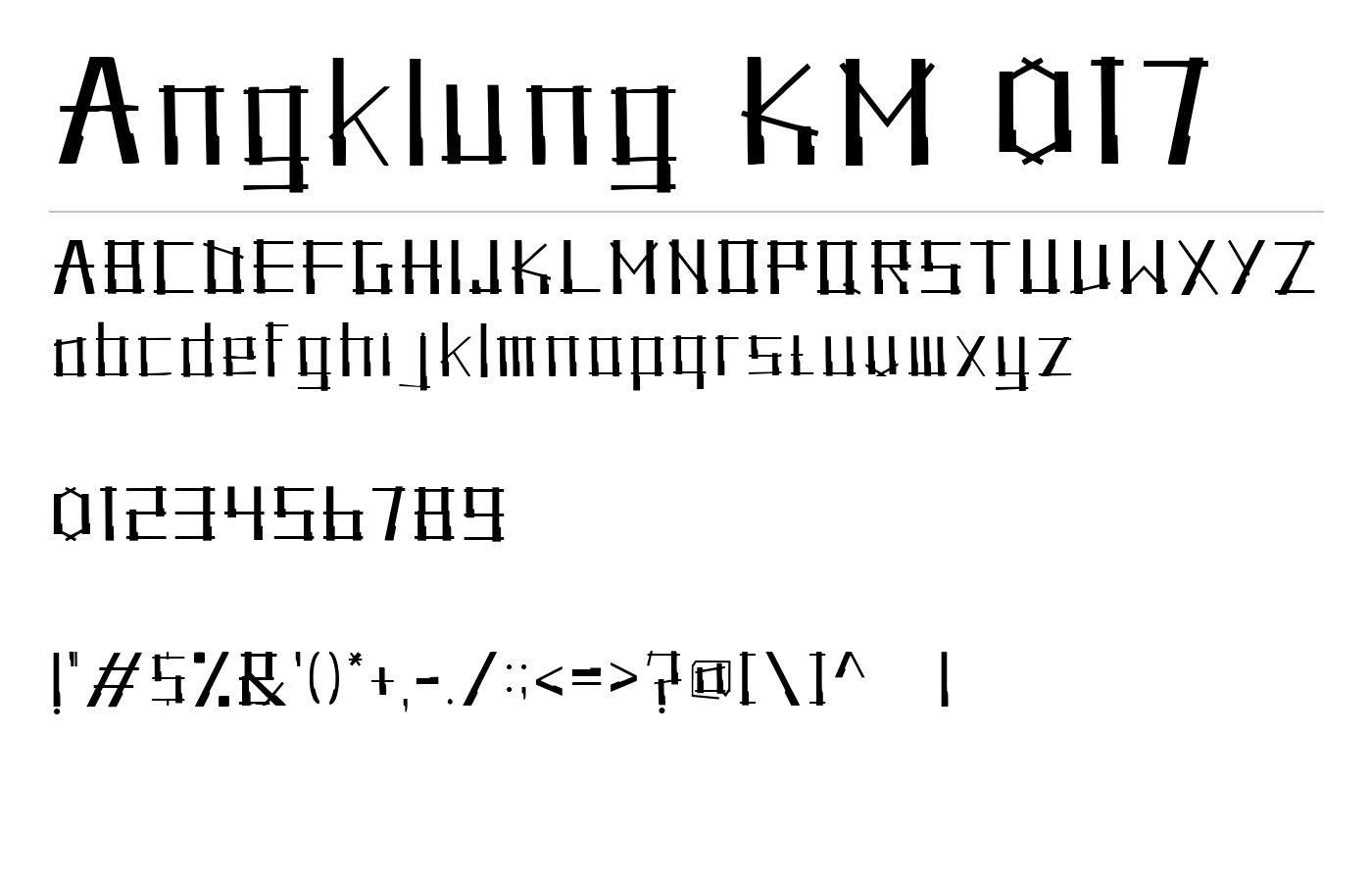
Angklung_KM_017 is a unique sans serif font with a narrow width and a distinctly hand-crafted, slightly rough appearance. Its stroke style features sharp, geometric lines connected by irregular crossbars, giving it a quirky and mechanical feel. This font is ideal for expressive, creative projects such as posters, logos, or branding that seek a modern yet unconventional look with a touch of artistic edge.